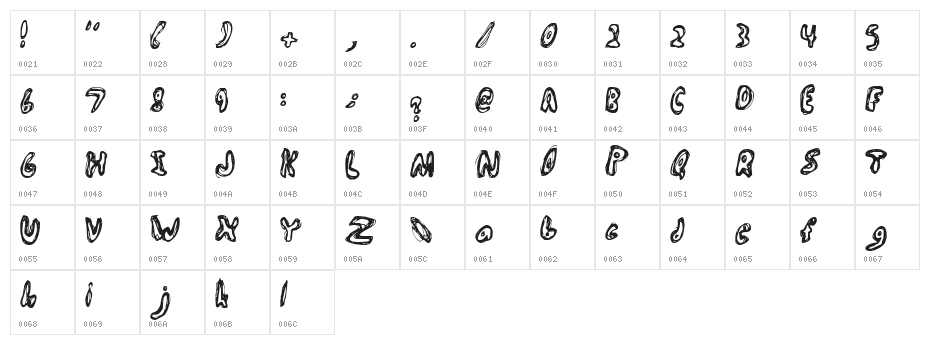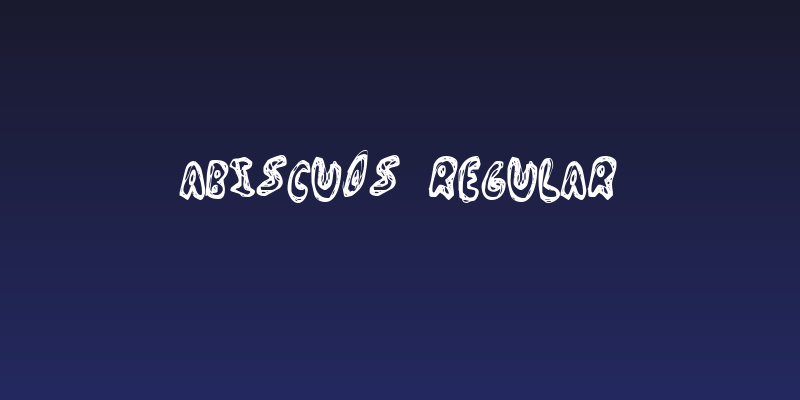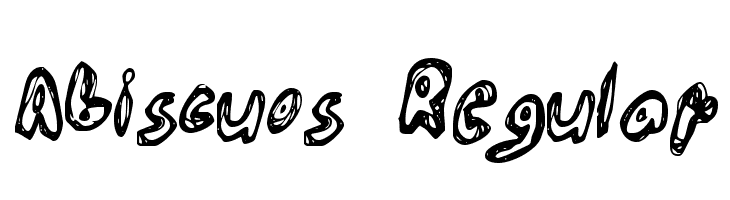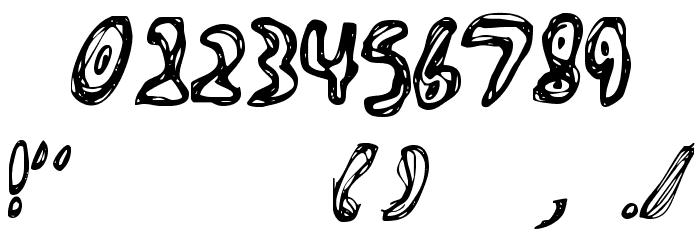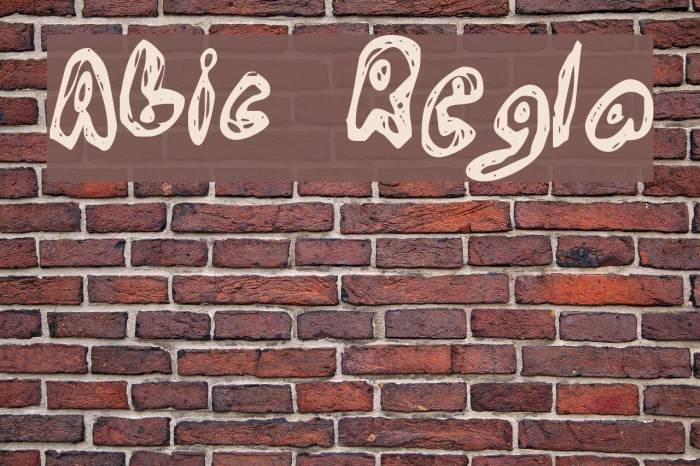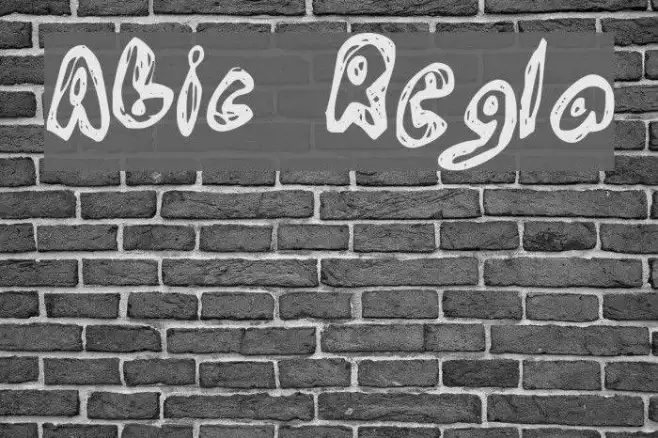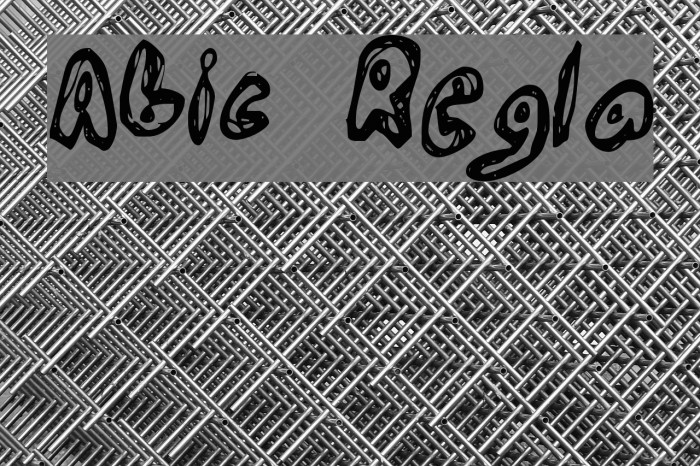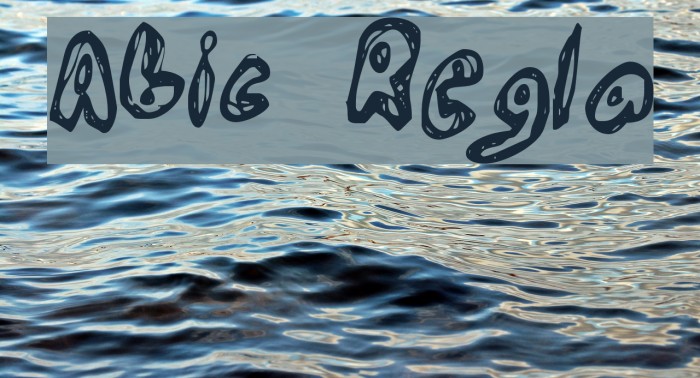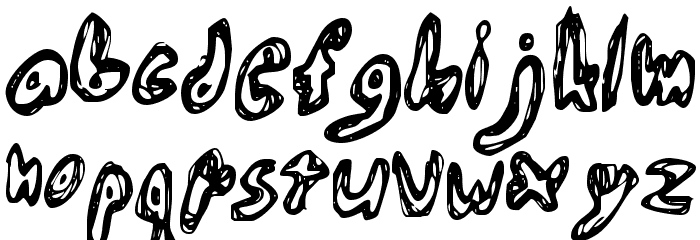
Abiscuos Regular Font
Abiscuos Regular Description
This font exhibits a highly decorative and playful style, characterized by its bold, hand-drawn appearance. Each character is filled with intricate, swirling patterns that give it a dynamic and energetic feel. The letters are irregular and organic, with varying stroke thicknesses that create a sense of movement and spontaneity. The overall look is whimsical and artistic, making it stand out as a unique choice for creative projects. The font maintains legibility despite its elaborate design, with each letterform clearly distinguishable. It is well-suited for applications where a bold and artistic statement is desired.
| Proposed Projects | Ideal for artistic posters, creative branding, children's book covers, and playful graphic designs. |